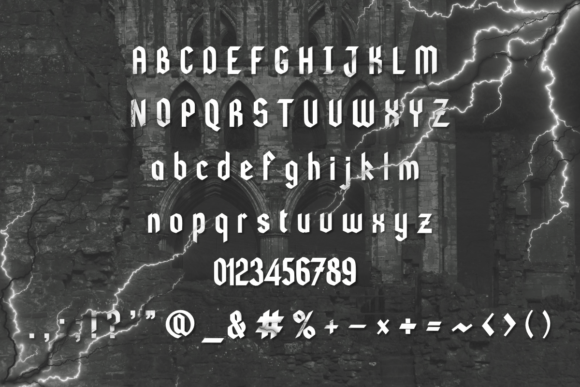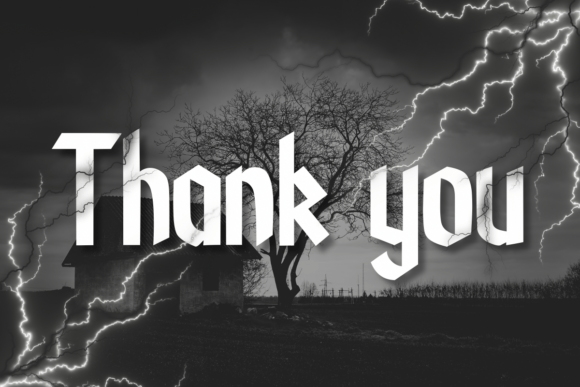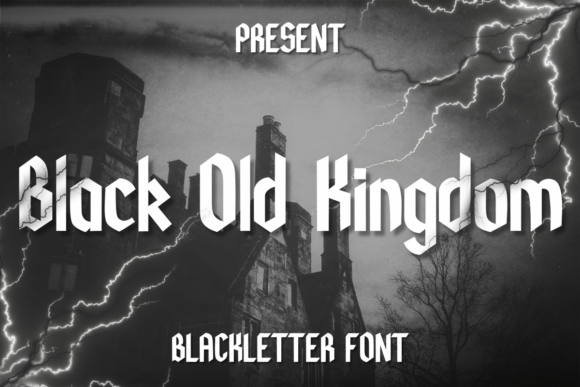
The Power of Black Old Kingdom: A Timeless Font for Creative Projects
I’ll never forget the struggle I faced while working on a medieval-themed poster design project. My client wanted a font that would transport their audience to the Middle Ages, but I was stuck with a bland, modern sans-serif font that just wouldn’t cut it. That’s when I stumbled upon Black Old Kingdom, a bold and classic blackletter font that instantly gave my design the medieval vibe I was looking for. In this article, I’ll share my experience with Black Old Kingdom, its features, and how to make the most of it in your designs.
An Honest Review of Black Old Kingdom
- ✨ Bold and striking appearance: Black Old Kingdom’s sharp lines and Gothic style make it a perfect choice for designs that need a strong, traditional look.
- ✅ Versatile: This font is suitable for a wide range of projects, from logos and posters to invitations and packaging.
- 💯 Easy to read: Despite its bold and ornate style, Black Old Kingdom is surprisingly easy to read, even in smaller sizes.
While Black Old Kingdom is an excellent font, it’s not without its quirks. Here are a few things to keep in mind:
- 🤔 Limited use in body text: Due to its bold and ornate style, Black Old Kingdom may not be the best choice for lengthy body text. It’s better suited for headings, titles, or short paragraphs.
- ⚠️ Kerning issues: As with any font, kerning issues may arise when using Black Old Kingdom. Be sure to adjust the kerning to ensure optimal readability.
- Take advantage of Canva’s built-in OpenType features, such as glyphs and stylistic alternates, to add more creativity to your design.
- Explore the font’s OpenType features, such as glyphs and stylistic alternates, to add more creativity to your design.
The Backstory of Black Old Kingdom
Black Old Kingdom was designed by a team of typographers who wanted to create a font that would evoke the spirit of the Middle Ages. Inspired by traditional Gothic architecture and calligraphy, they crafted a font that’s both bold and elegant. The result is a timeless font that’s perfect for designs that need a touch of history and tradition.
| What is Black Old Kingdom? | Black Old Kingdom is a bold and classic blackletter font with a strong, traditional look. |
| Is Black Old Kingdom suitable for body text? | No, Black Old Kingdom is better suited for headings, titles, or short paragraphs due to its bold and ornate style. |
| Does Black Old Kingdom support OpenType features? | Yes, Black Old Kingdom supports OpenType features, such as glyphs and stylistic alternates, which can add more creativity to your design. |